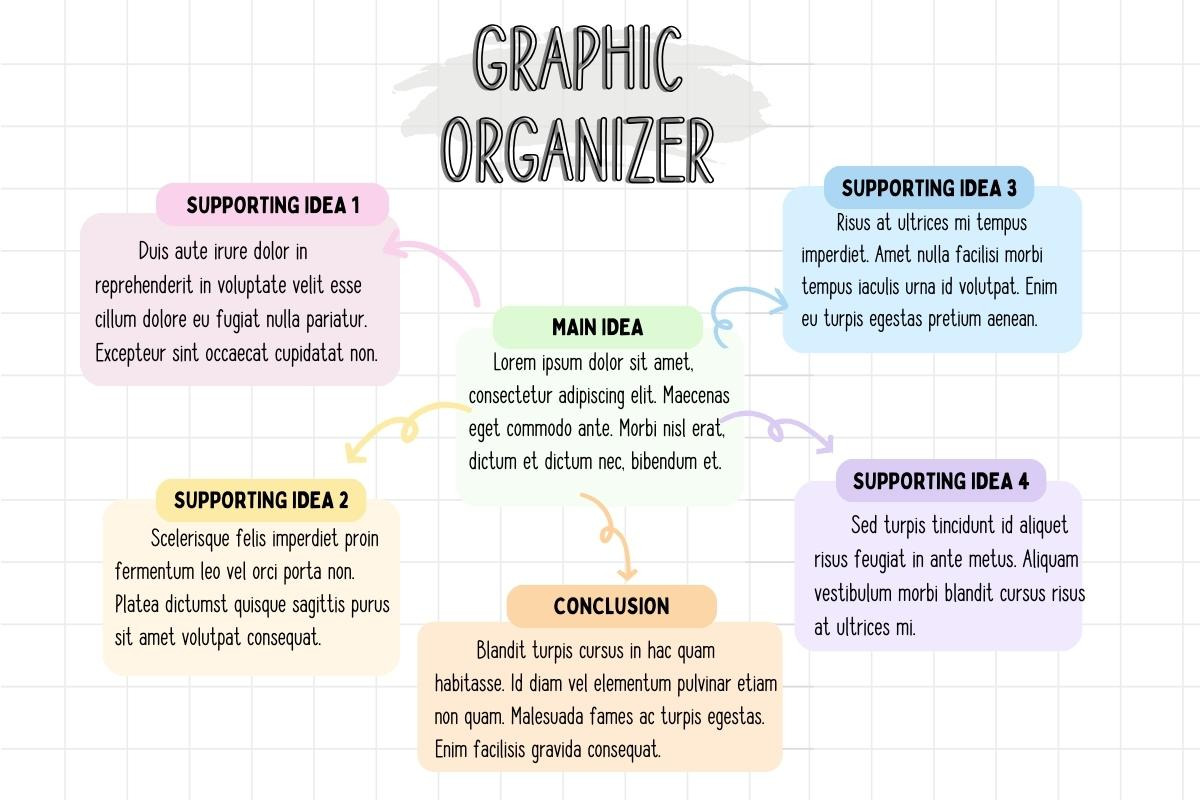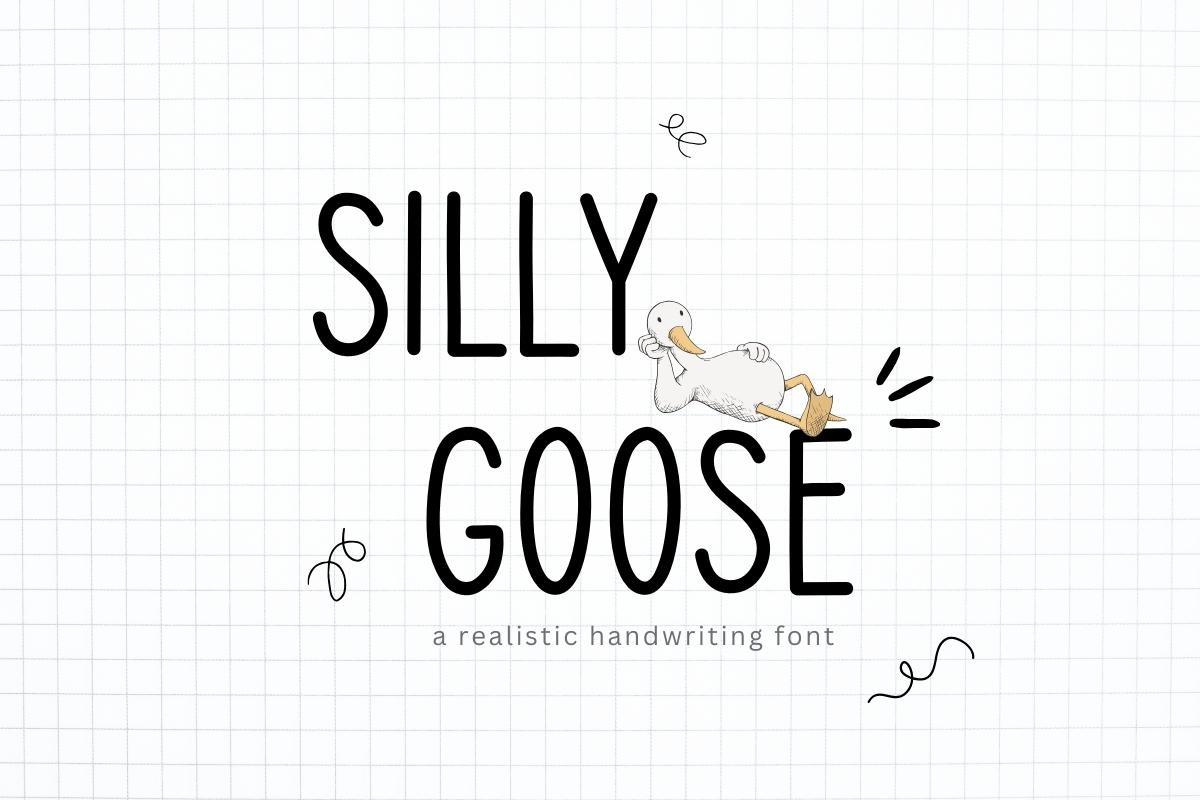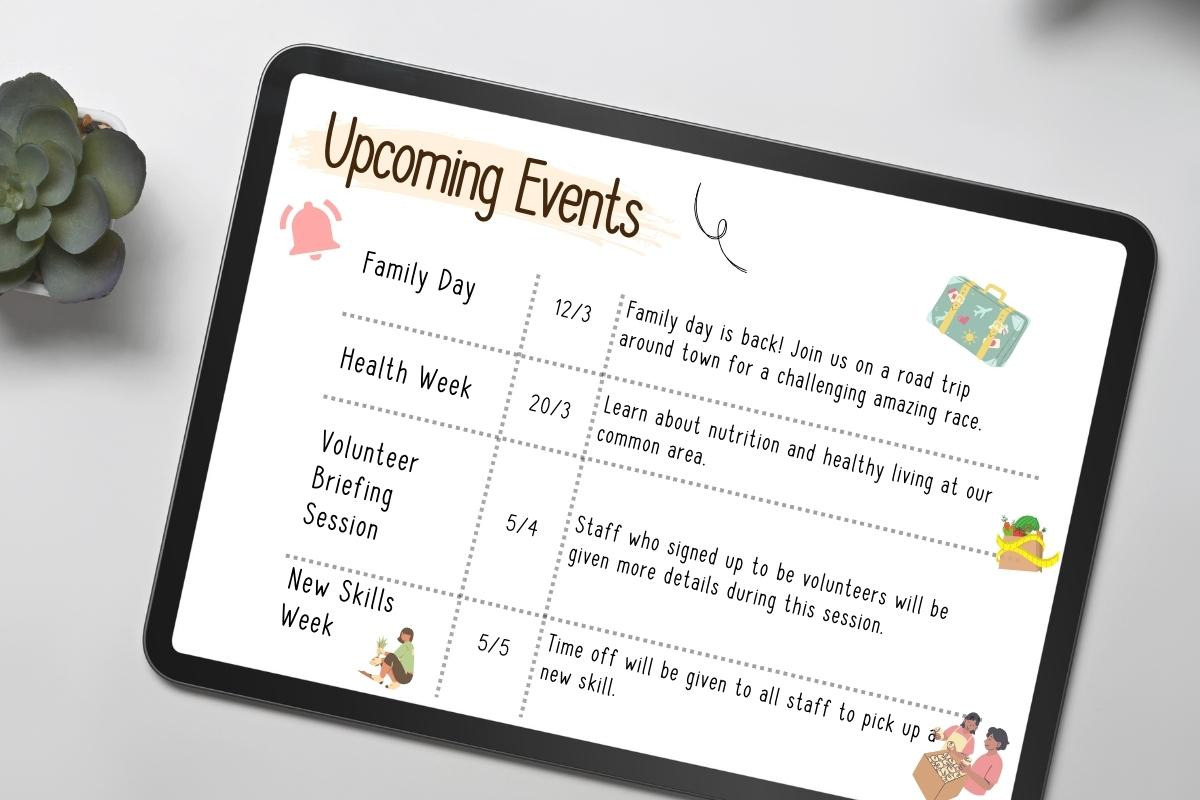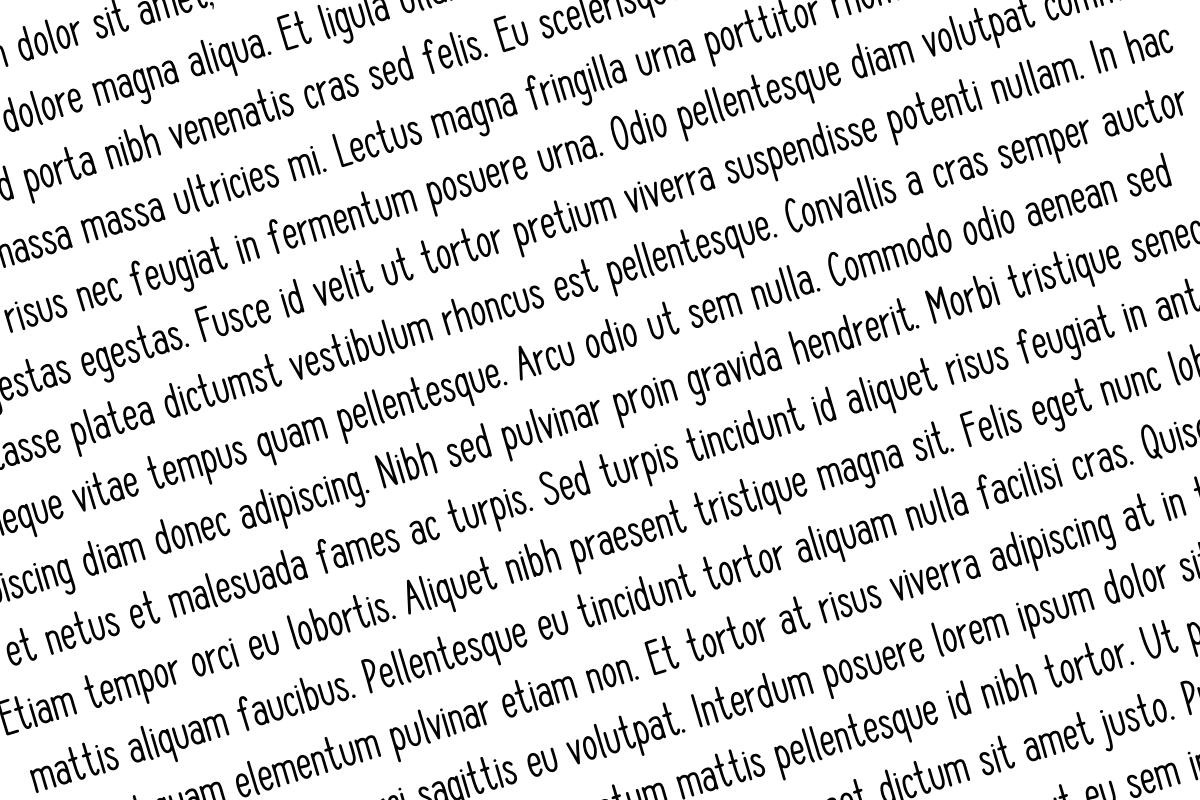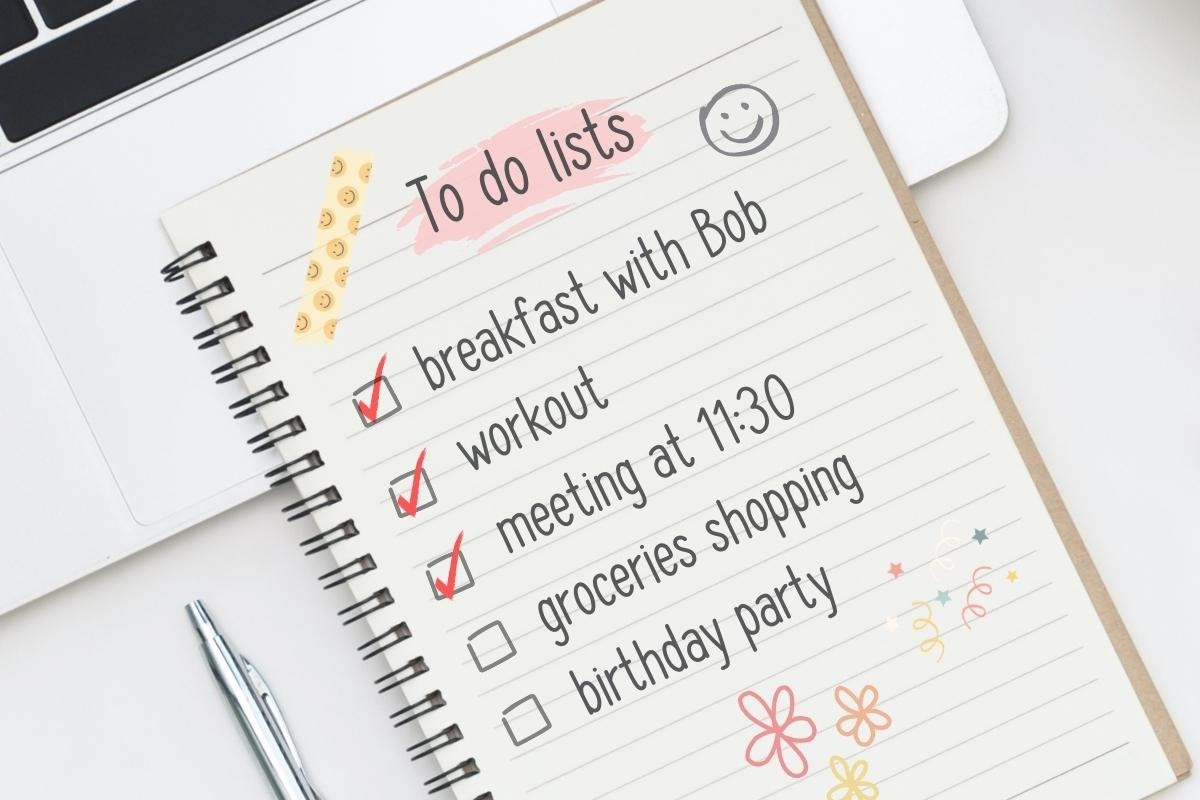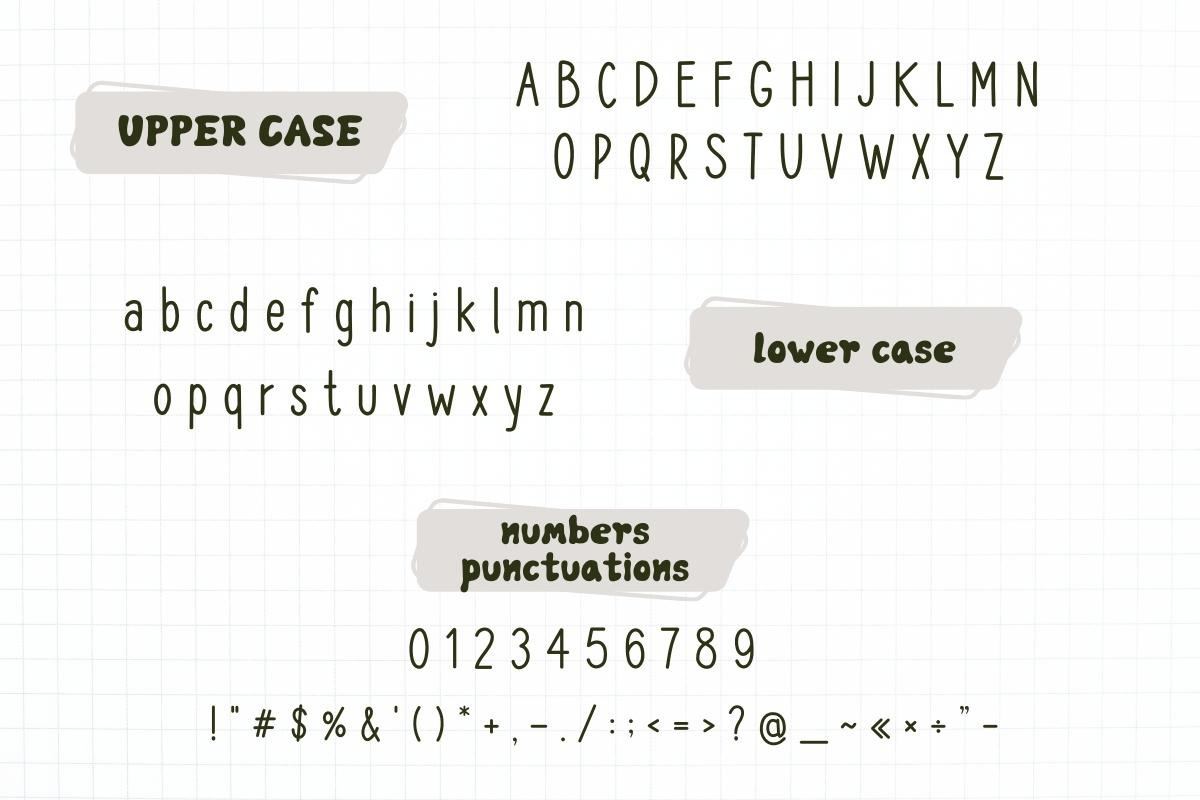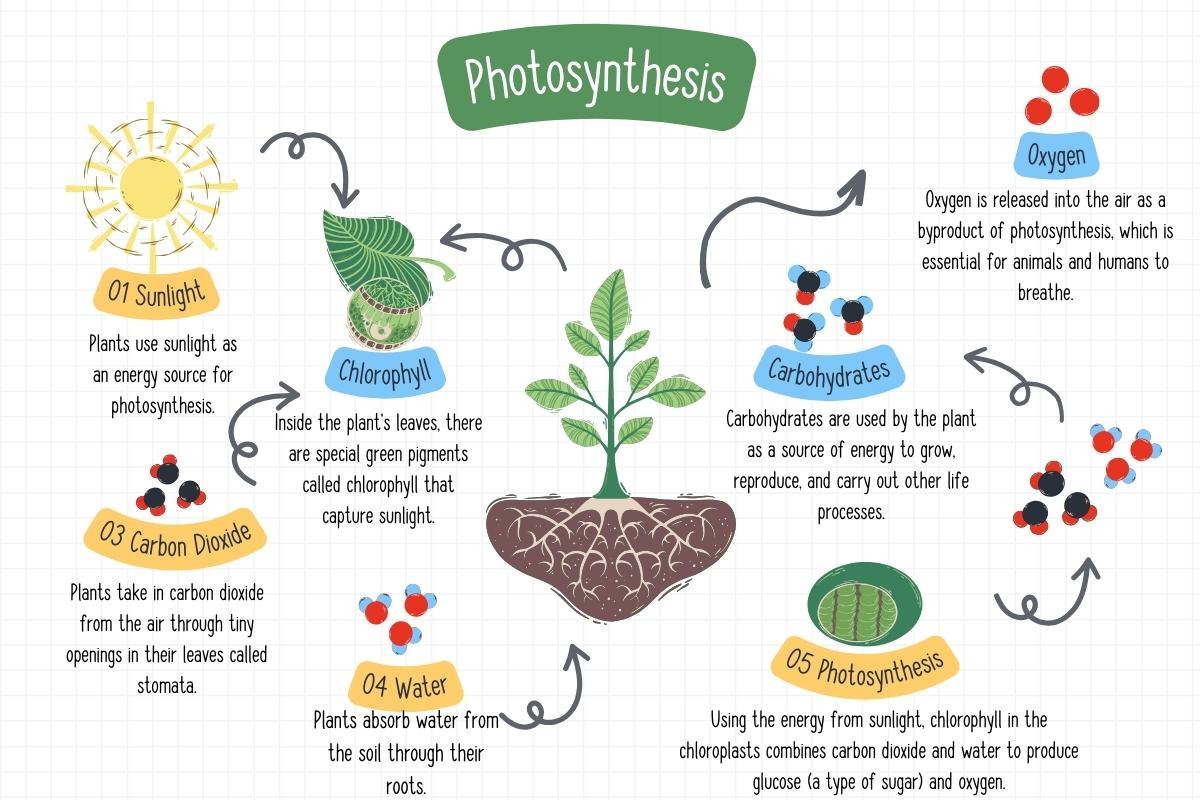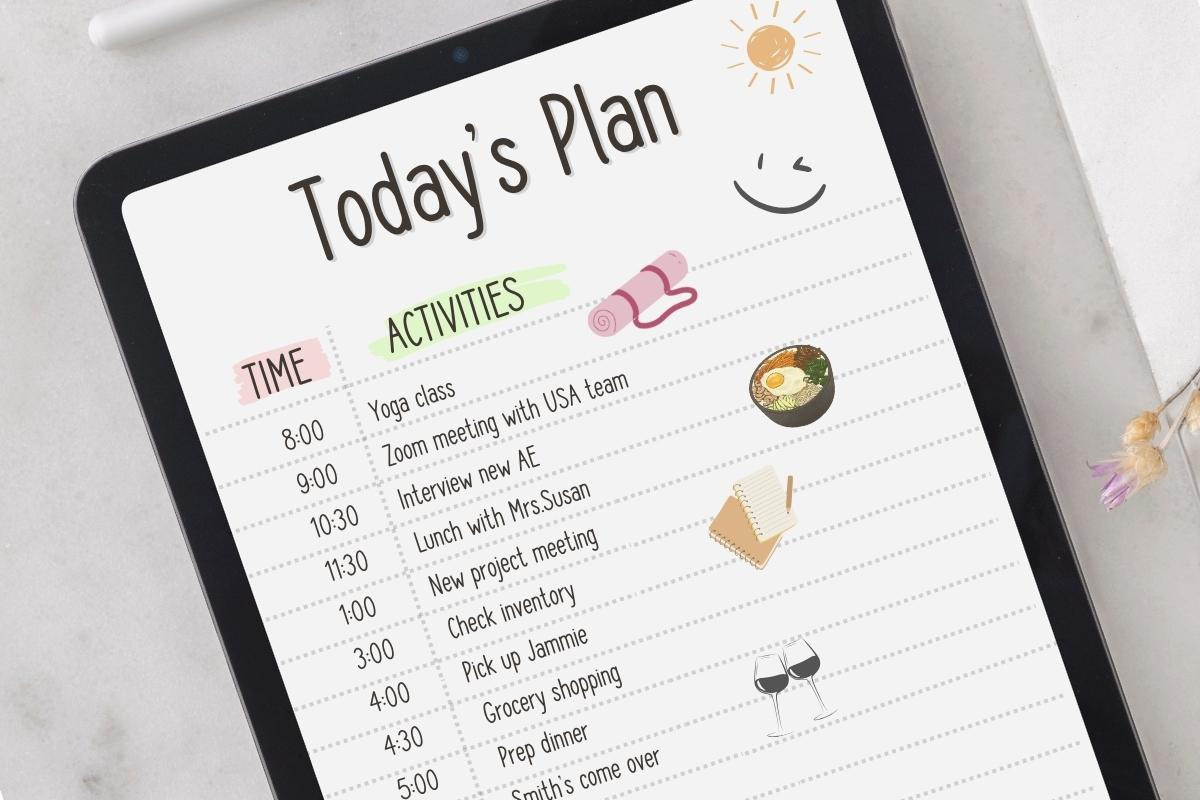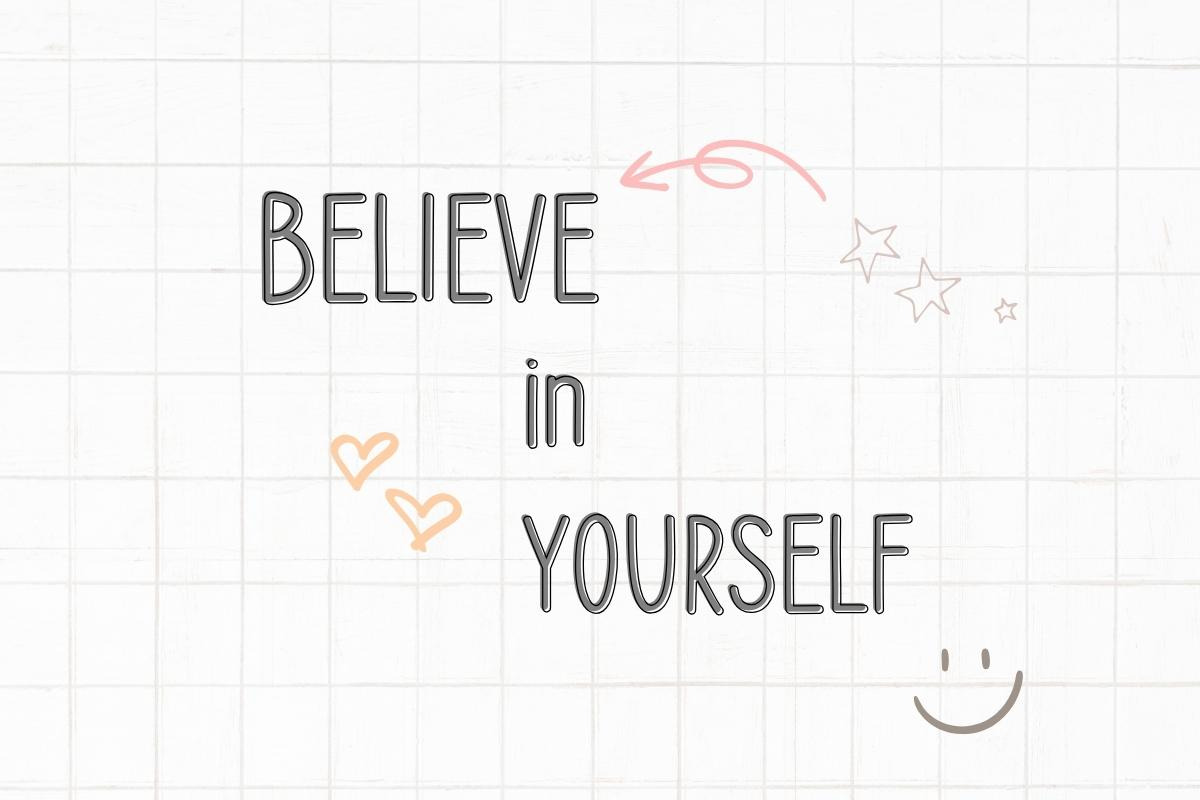
Silly Goose - Handwritten Font
Silly Goose Font is a simple, neat handwritten font, perfect for digital note-taking. You can use this font in various projects - blog posts, logos, branding, digital planner, invitations, greeting cards, planners, photo albums, decorations and much more.